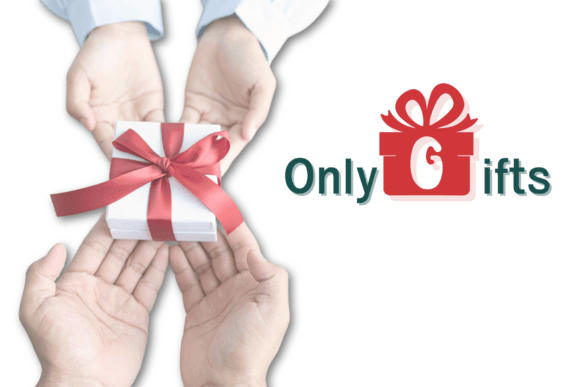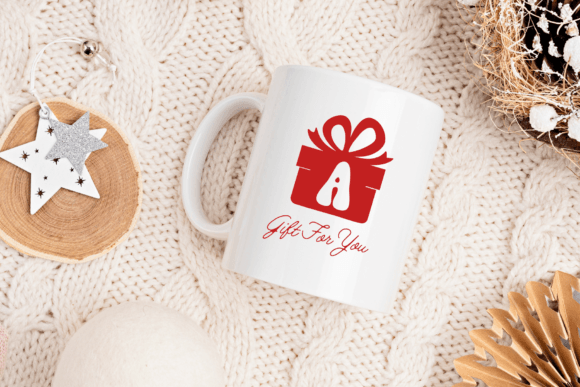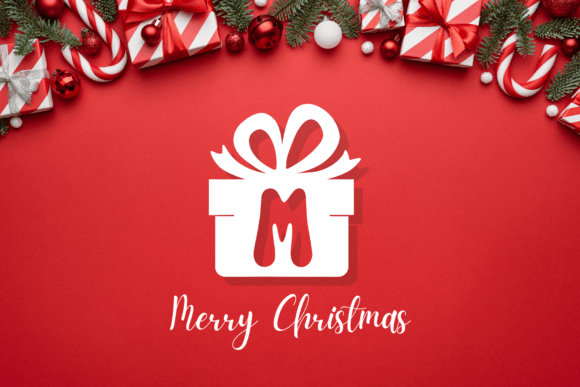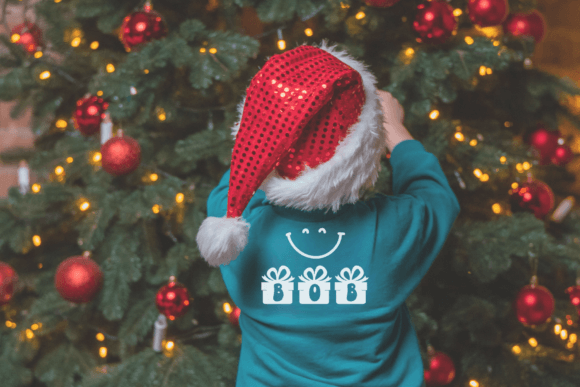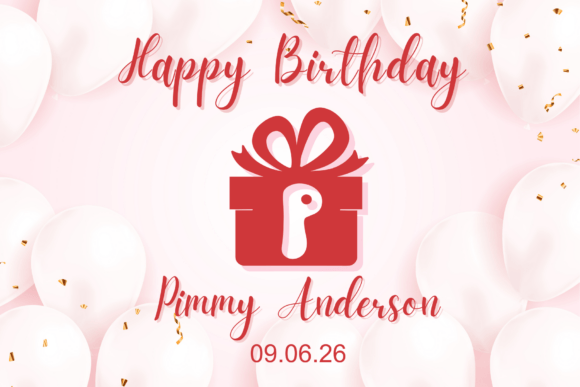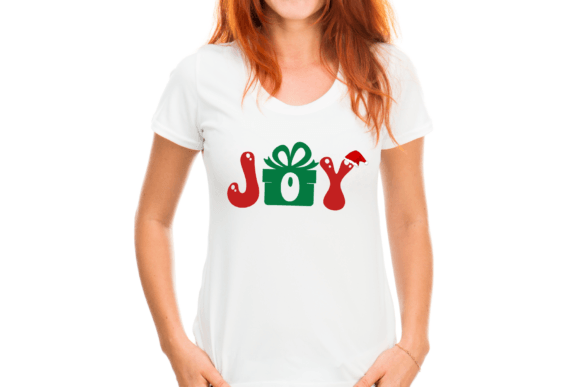
The Gift Box Retro Font: A Fun and Festive Addition to Your Designs
Ah, the joy of designing for the holidays! 🎄 I still remember the year I was tasked with creating a festive party invitation for a client’s milestone birthday. As I scrolled through font after font, nothing seemed quite right – until I stumbled upon the Gift Box Retro font. It was love at first sight! 💕 The charming gift box illustrations and playful vibe instantly elevated my design game. In this article, I’ll share my experience with Gift Box Retro, its features, and how to make the most of it in your designs.
- ✨ Unique and charming gift box illustrations that add a festive touch to any design
- ✅ Easy to use and navigate, even for those new to OpenType features and glyphs
- 🎉 Perfect for holiday cards, party invitations, decorative labels, and more
While Gift Box Retro is an amazing font, there are a few things to keep in mind:
- ⚠️ Some users may find the font a bit limited in terms of variations and styles
- 🤔 The font may not be suitable for very formal or professional designs, as it’s more playful and whimsical
The Designer Inspiration Behind Gift Box Retro
Gift Box Retro was inspired by the nostalgia of childhood holidays and the joy of gift-giving. The designer, a lover of vintage illustrations and playful typography, aimed to create a font that would bring a smile to people’s faces. With Gift Box Retro, you can add a touch of whimsy and festivity to your designs, making them truly special and memorable.